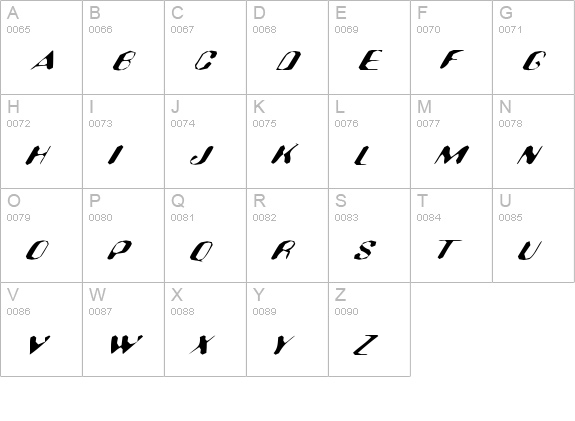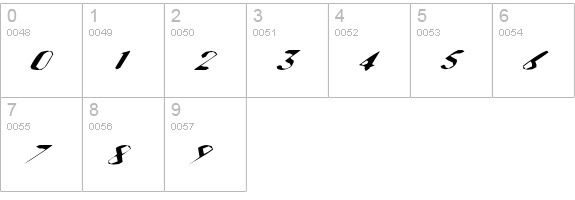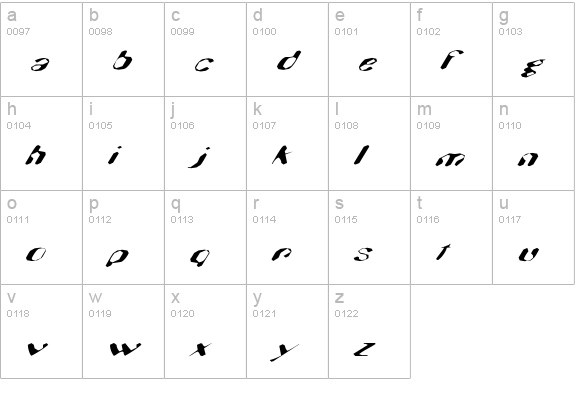
Introducing Hugenick font, a sophisticated and versatile typeface that exudes elegance and modernity. With its sleek lines and stylish curves, Hugenick is perfect for a wide range of design projects, from branding to editorial design. This font strikes the perfect balance between classic and contemporary, making it a must-have in any designer's toolkit. What sets Hugenick font apart is not only its timeless appeal but also the fact that it is available for free download at FontsMarket.com. Yes, you read that right - this exquisite font can be yours at no cost, allowing you to elevate your design work without breaking the bank. Don't miss out on this opportunity to add Hugenick font to your collection and take your projects to the next level. Download it today and let your creativity soar!